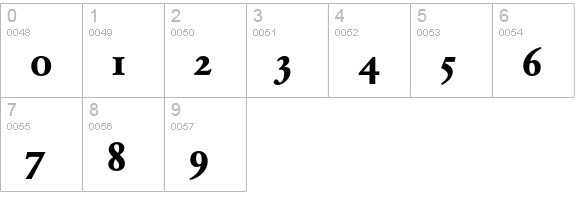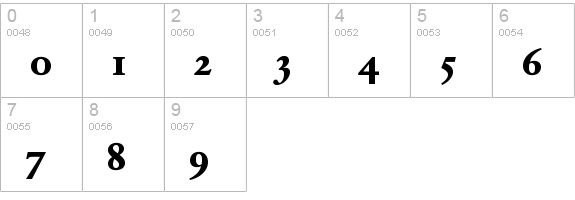
Garamond BE Bold Expert Font Details
Garamond BE Bold Expert is a strong, high-contrast variant in the Garamond typeface family \xE2\x80\x94 well suited to headlines, attention-grabbing titles, and strong calls-to-action.
Garamond BE Bold Expert is an exquisite font that effortlessly blends the classic elegance of Garamond with a modern twist. Its bold weight commands attention and adds a touch of sophistication to any design project. This unique typeface showcases the intricate details of Garamond's timeless letterforms, while the bold weight emphasizes its strong presence. The expert design ensures that each character is meticulously crafted, with precision and attention to detail. Whether used for headlines, logos, or body text, Garamond BE Bold Expert exudes a sense of confidence and professionalism. Its bold weight ensures that your message is delivered with impact, while the harmonious curves and balanced proportions create a harmonious visual experience. The best part is that Garamond BE Bold Expert is available for free download at FontsMarket.com. This means that designers, creatives, and typographers can easily access this exceptional font without any cost. So, whether you are working on a branding project, editorial design, or any other creative endeavor, Garamond BE Bold Expert is the perfect choice. Its bold weight, expert craftsmanship, and free availability make it a truly versatile and valuable addition to any designer's toolkit.